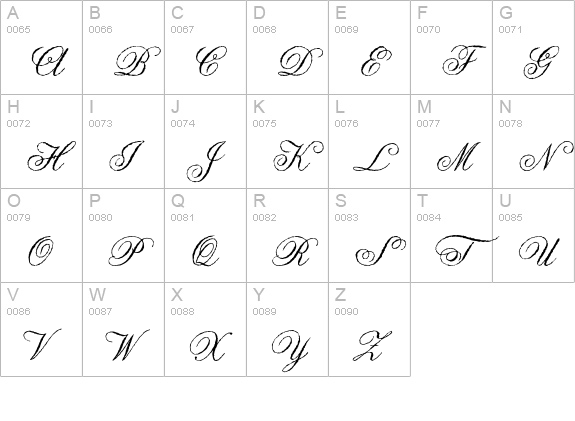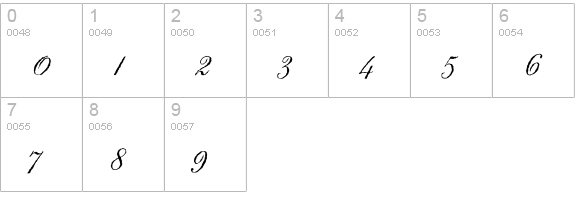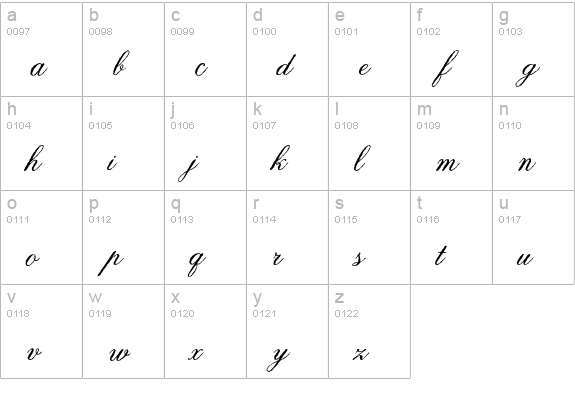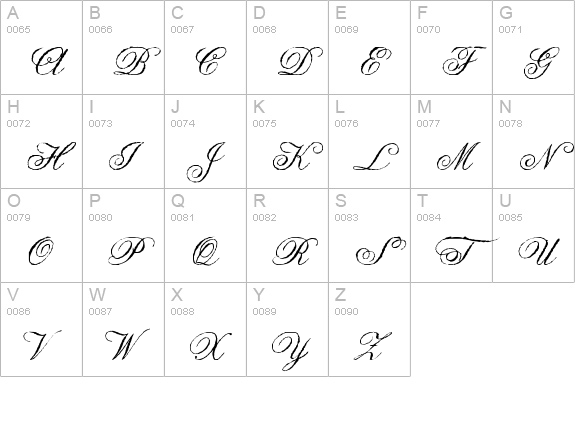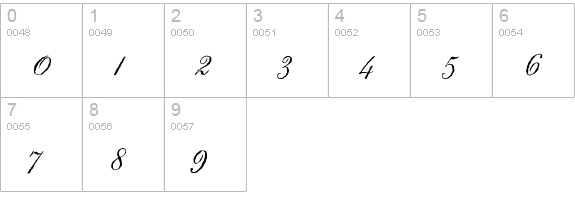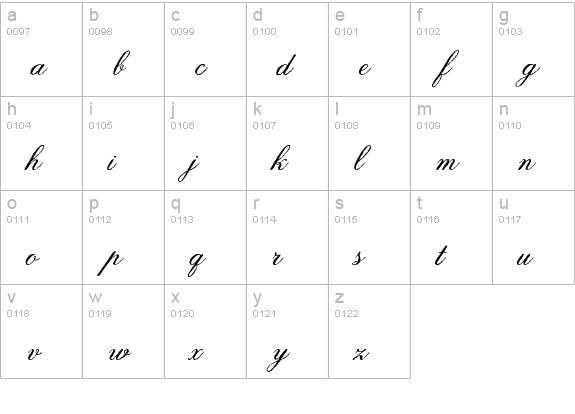
AngliaOldeStandard Font Details
AngliaOldeStandard font is a timeless and elegant typeface that exudes a sense of classic sophistication. Its intricate details and ornate flourishes make it the perfect choice for projects that require a touch of vintage charm. Whether used for invitations, posters, or branding materials, AngliaOldeStandard adds a touch of refinement to any design. The best part? AngliaOldeStandard font is available for free download at FontsMarket.com. This means you can easily access this stunning font and elevate your projects with its unique style without any cost. Don't miss out on the opportunity to enhance your designs with the beauty and grace of AngliaOldeStandard font - download it today and start creating stunning visuals that leave a lasting impression.